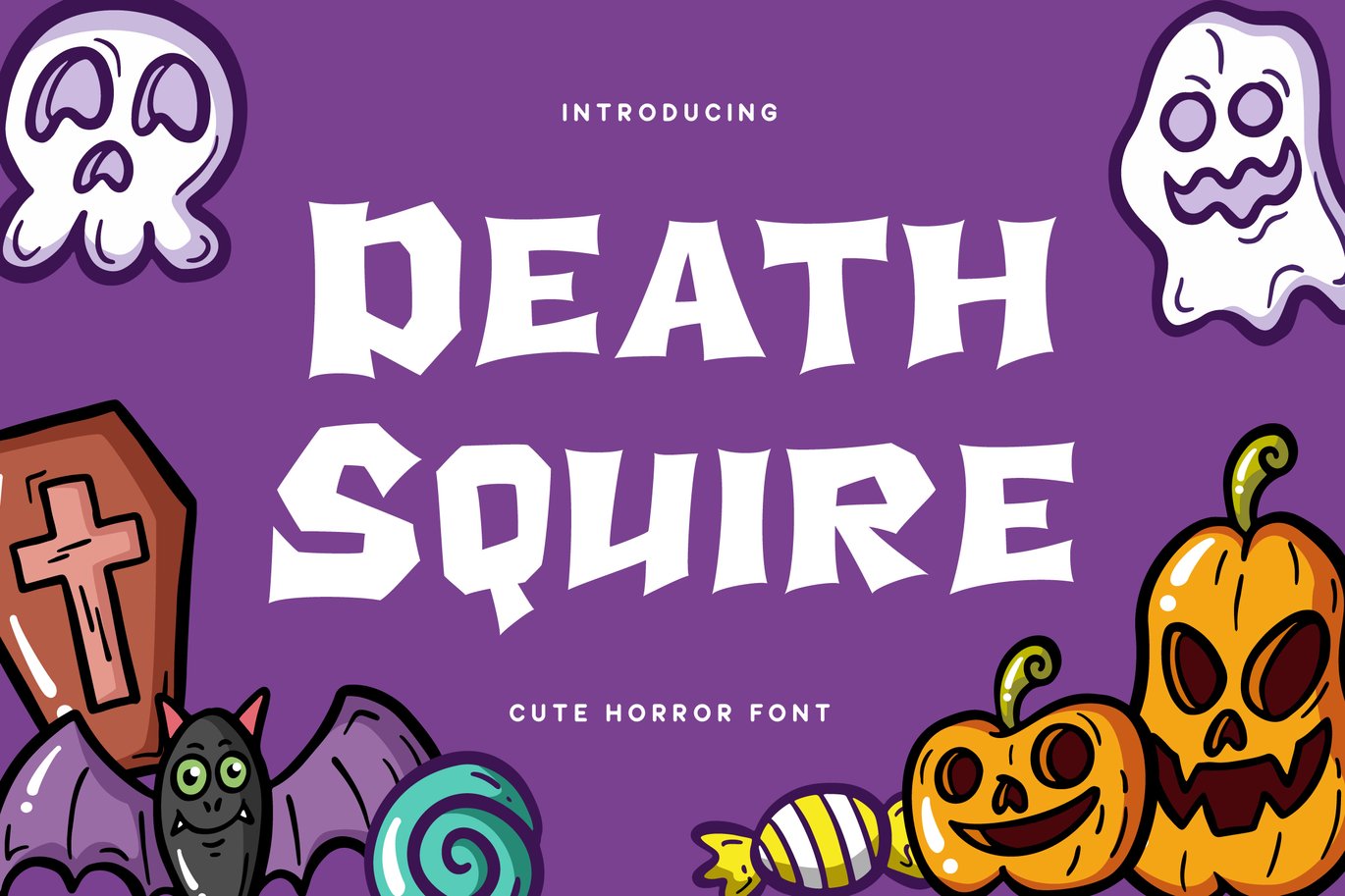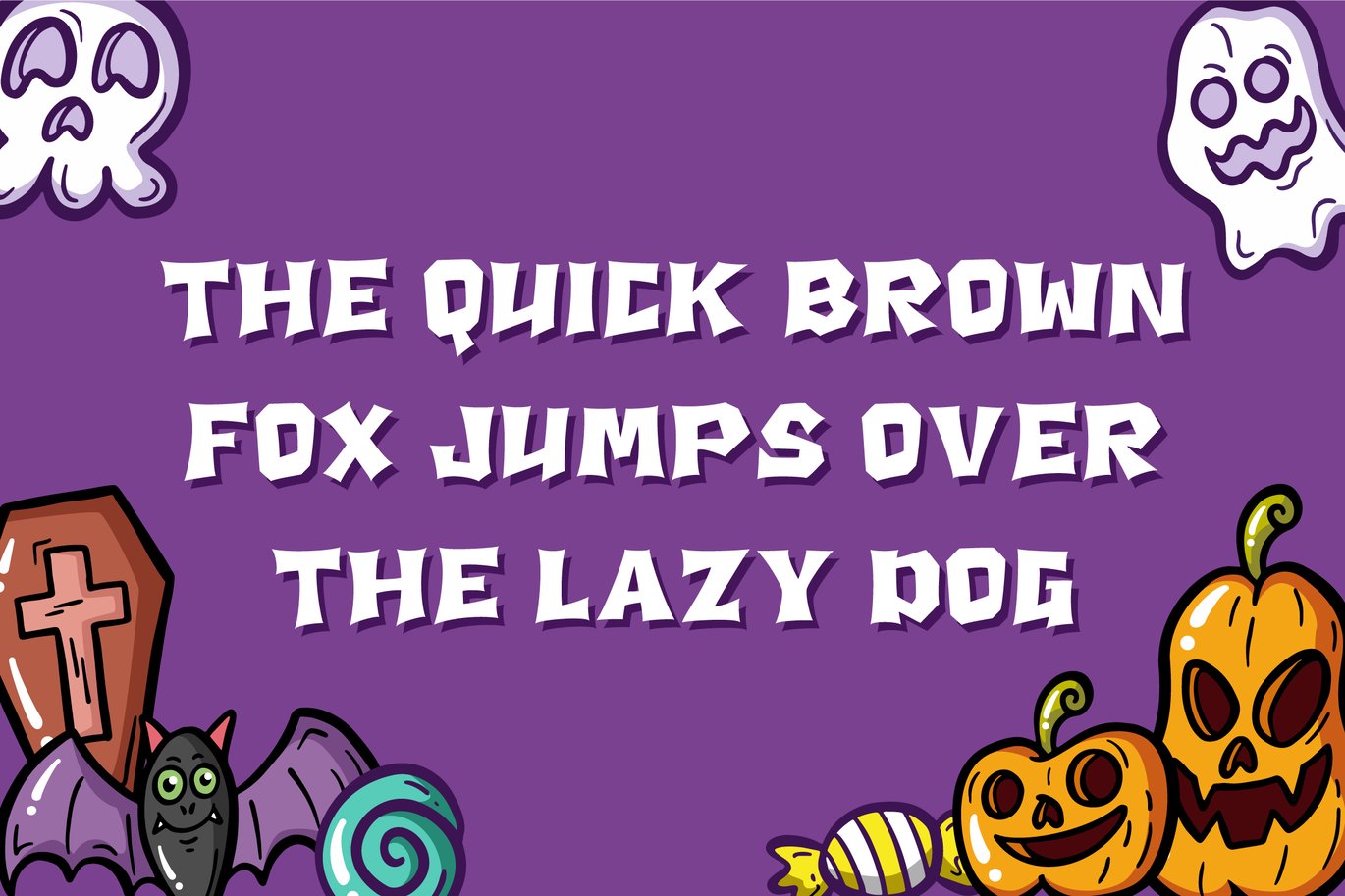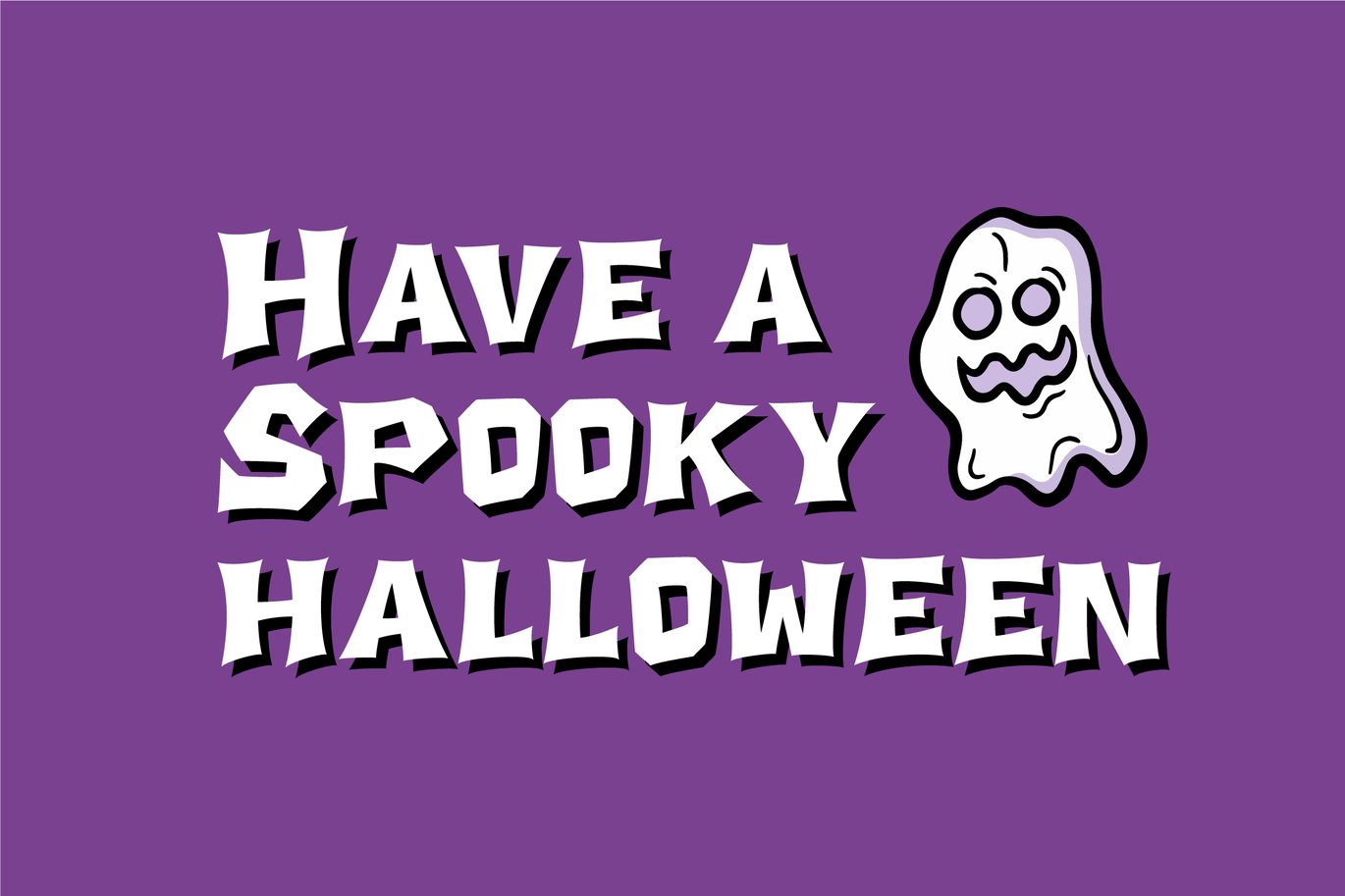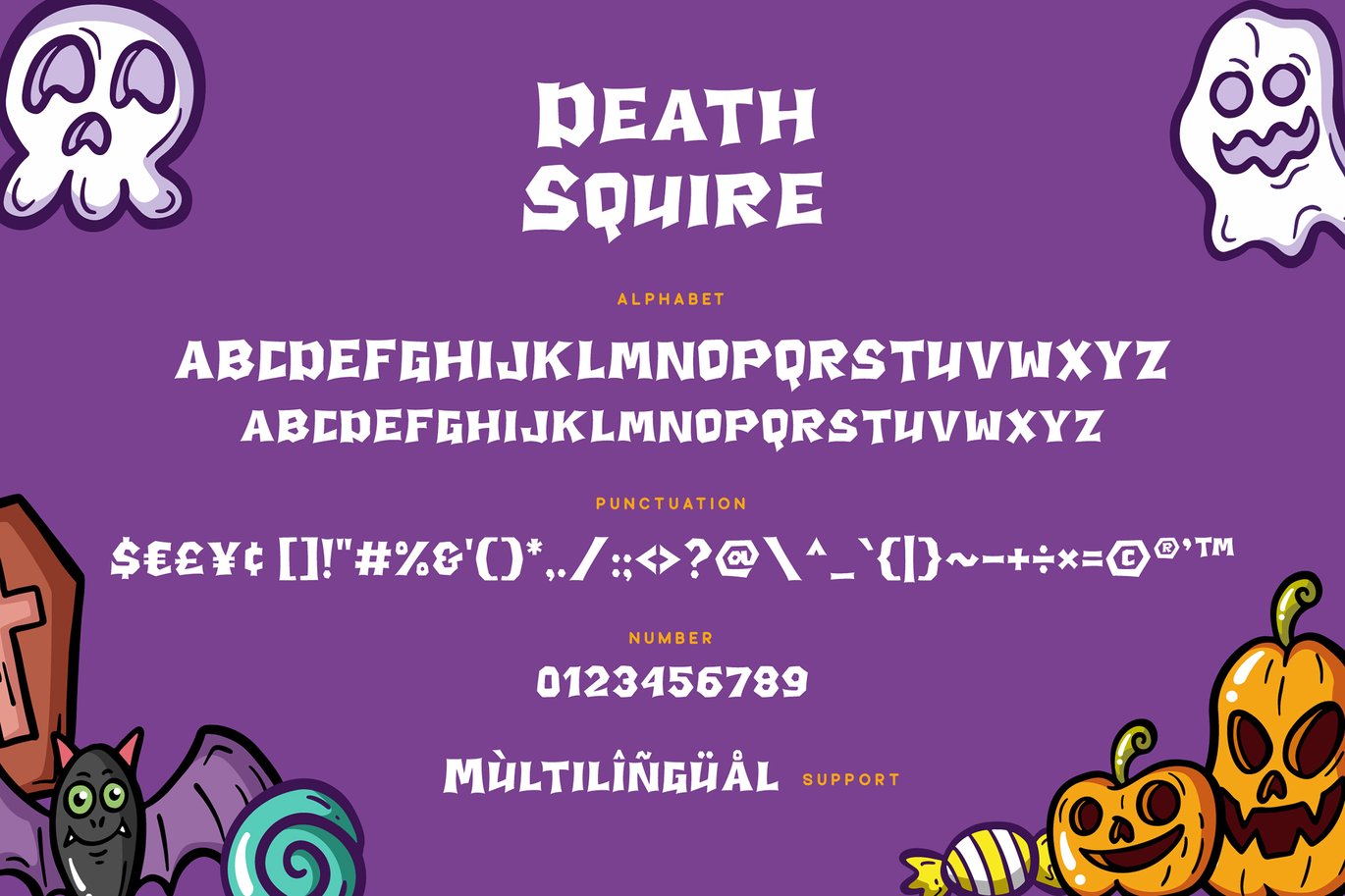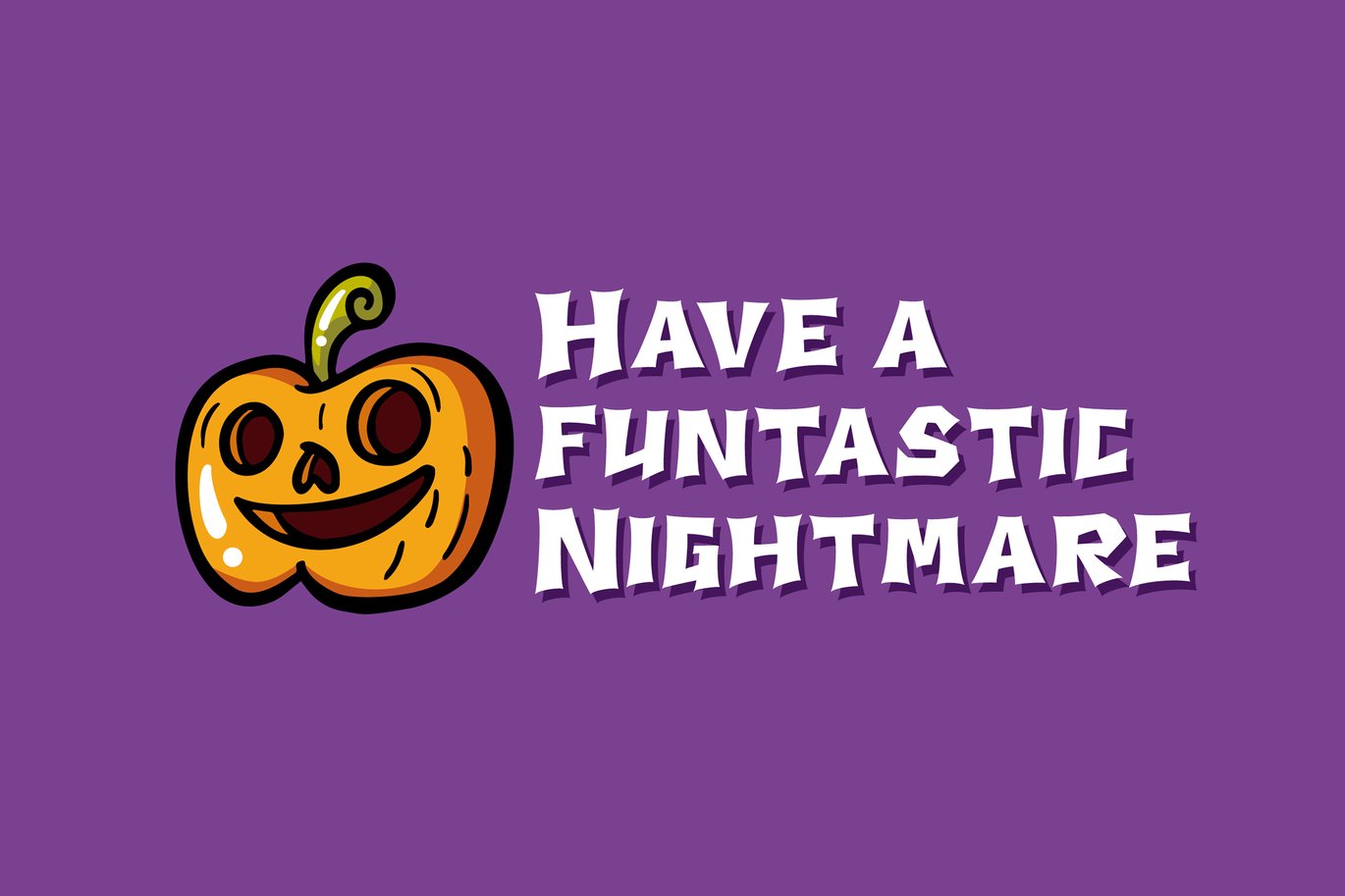
Death Squire – Halloween Font
Death Squire is a cute horror display font. The perfect match for any Halloween designs such as logo, typography design, product packaging, invitation, quotes, t-shirt design, label poster and much more.
- Numerals & Punctuations
- Multilingual Language